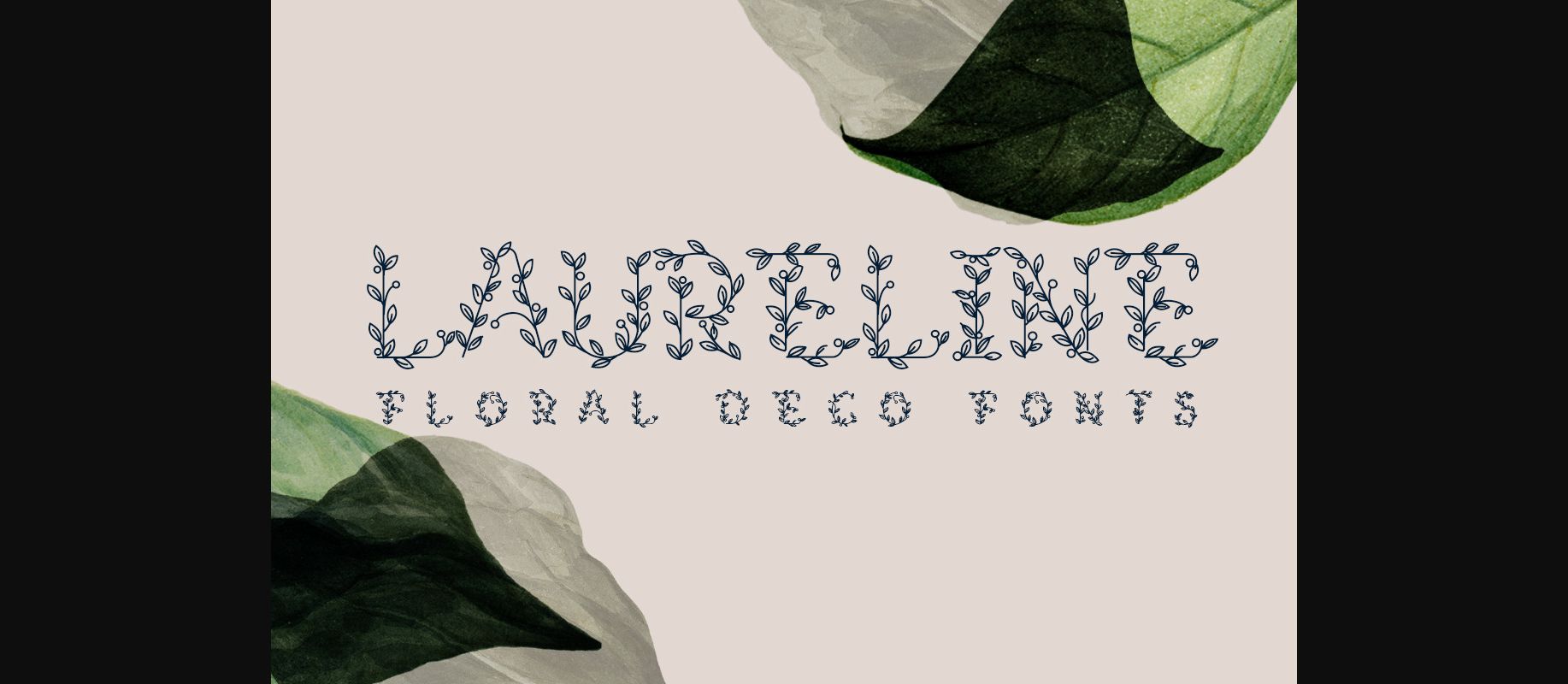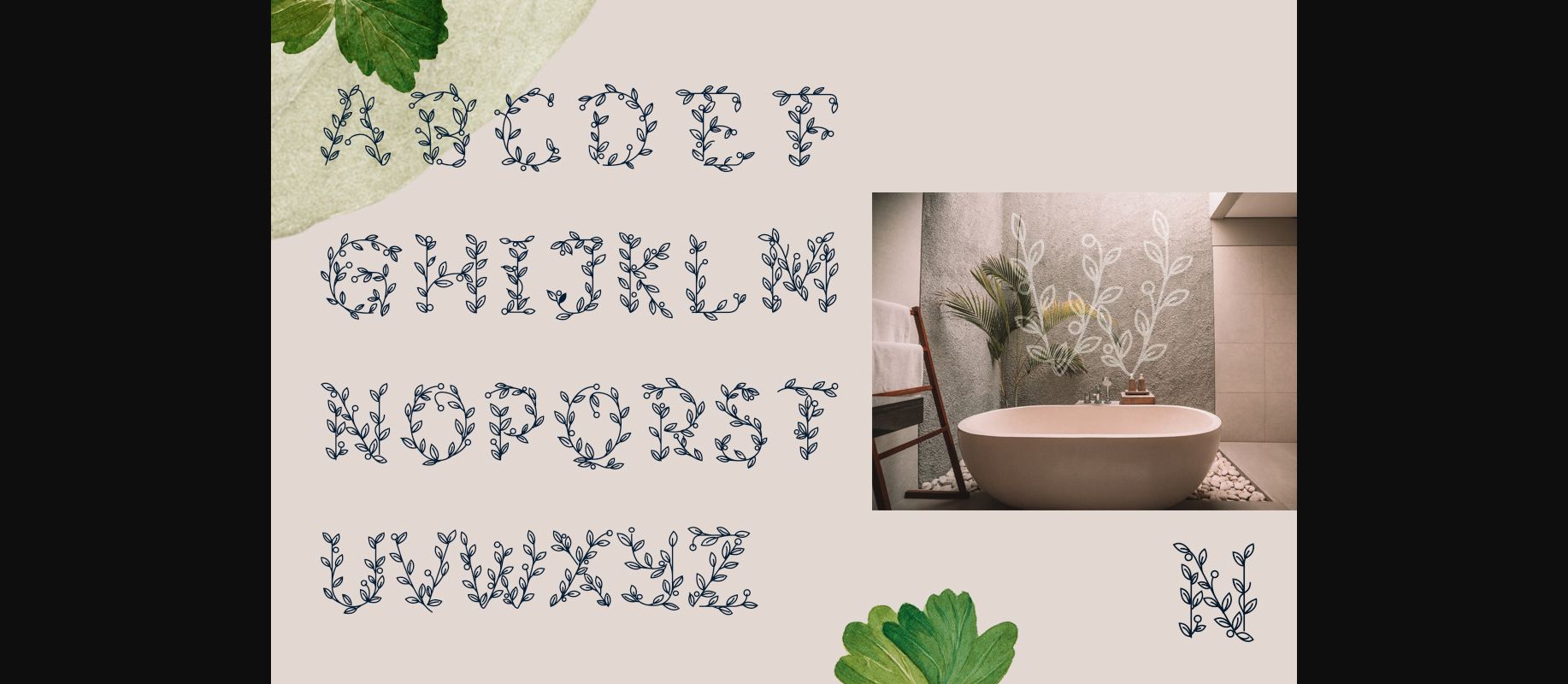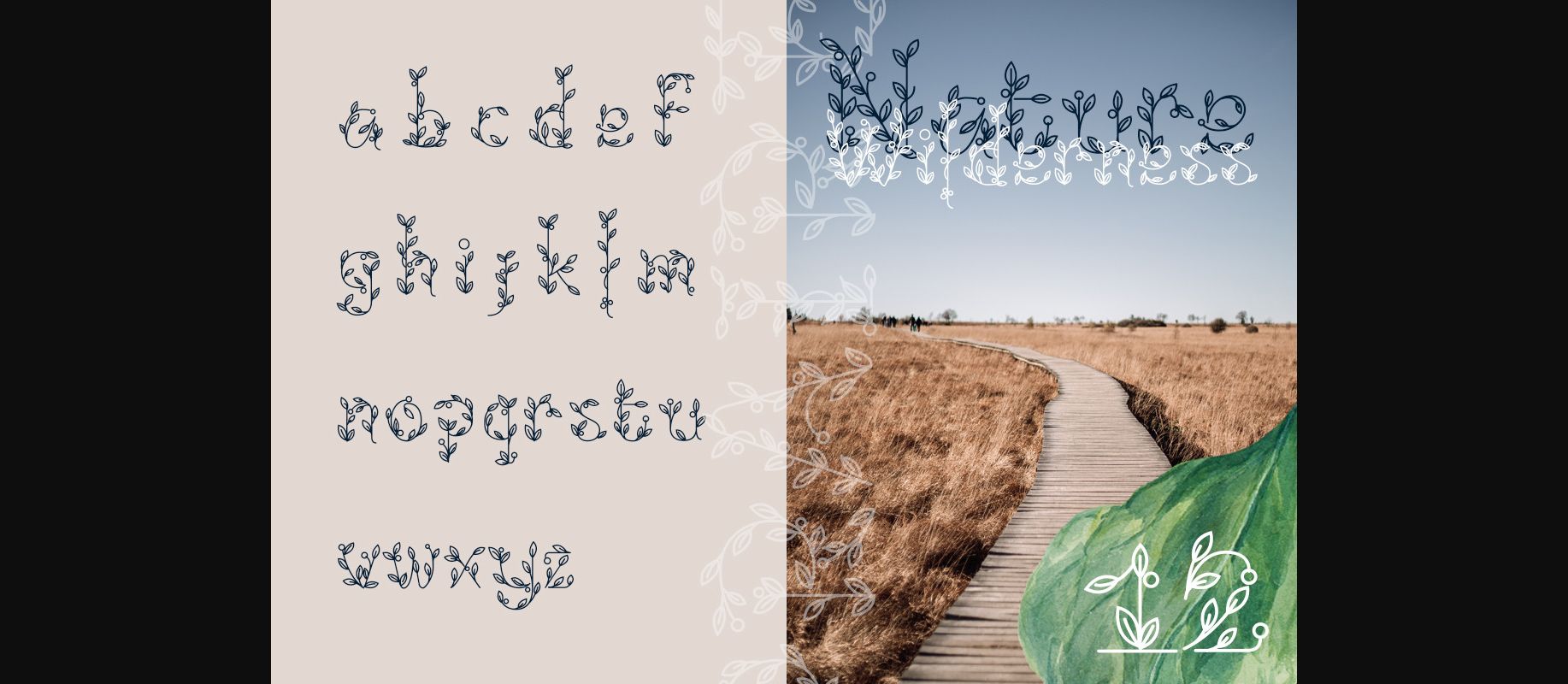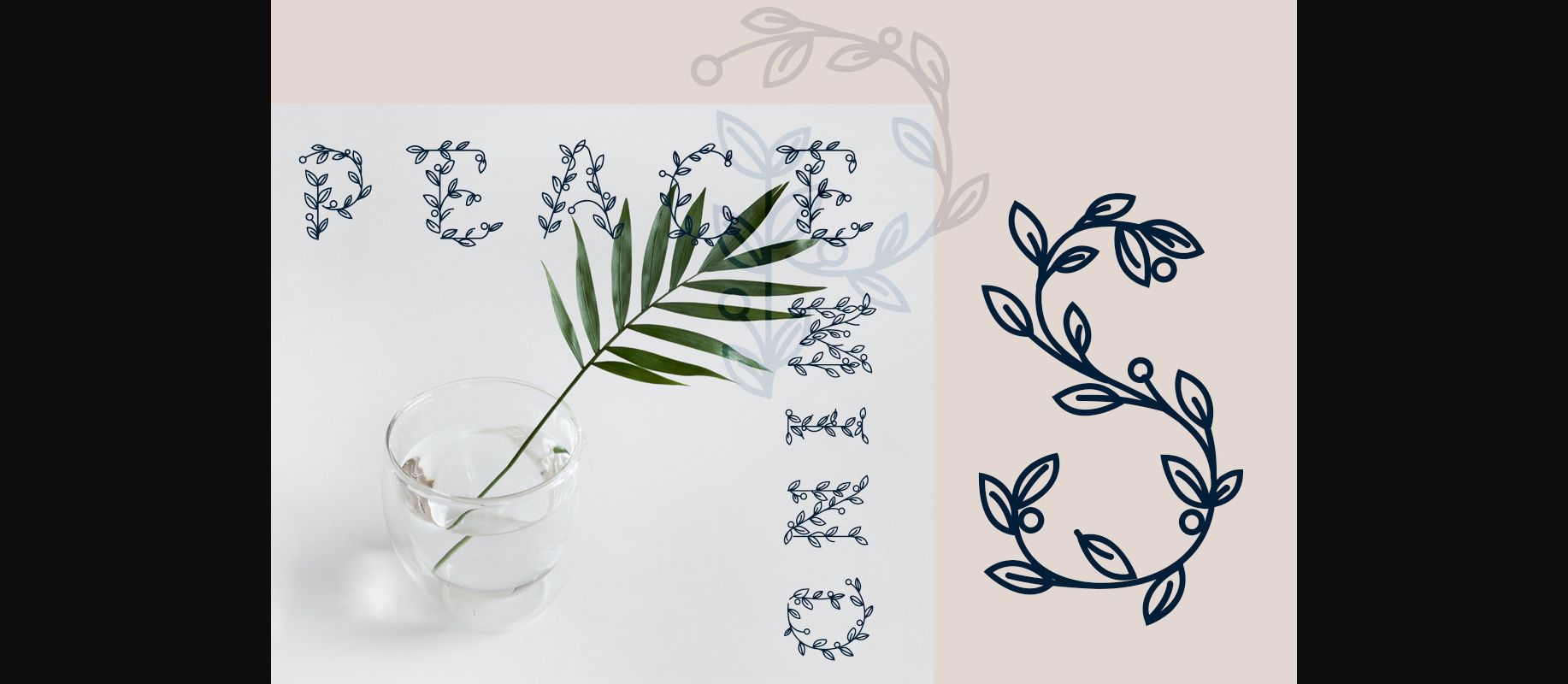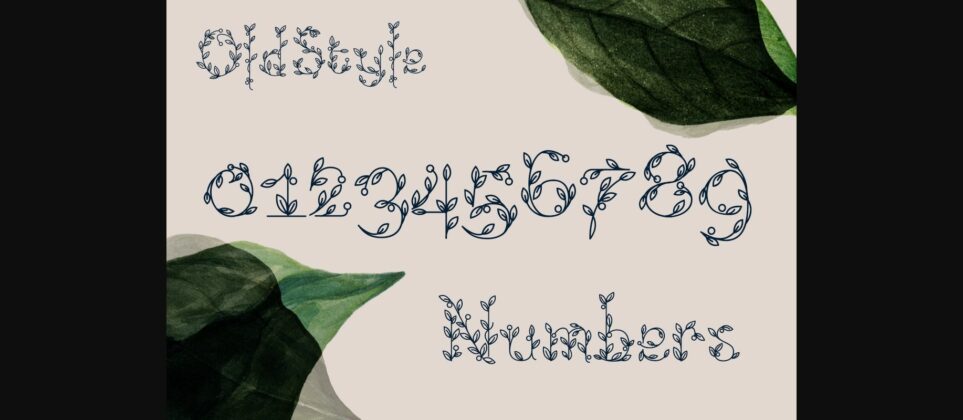
Laureline Font
About Laureline Font
Laureline is a fresh, beautiful and incredibly detailed decorative font. It will elevate a wide range of crafting ideas, from cards, to branding, labels and much more.